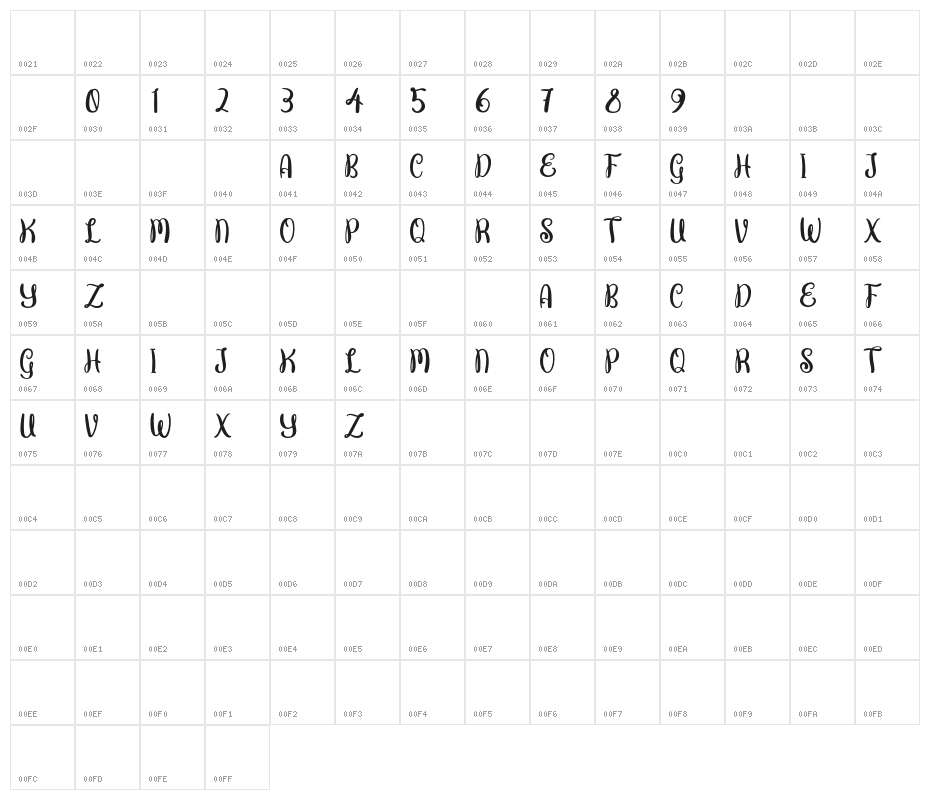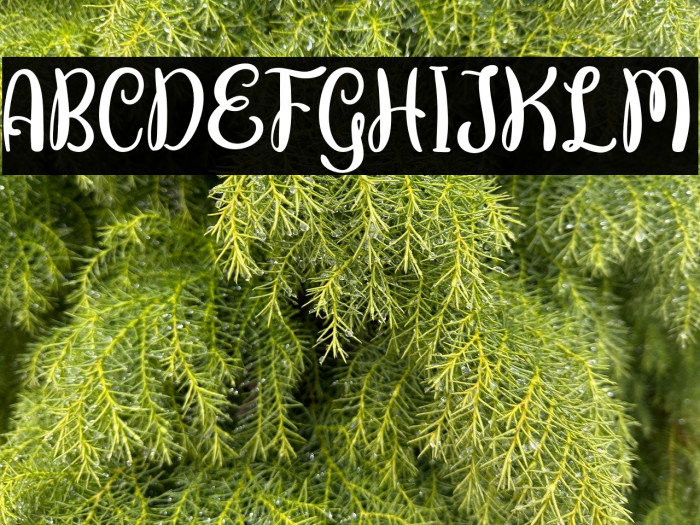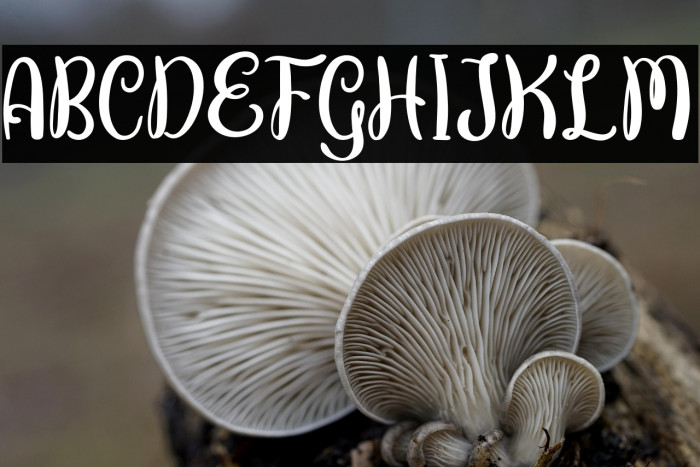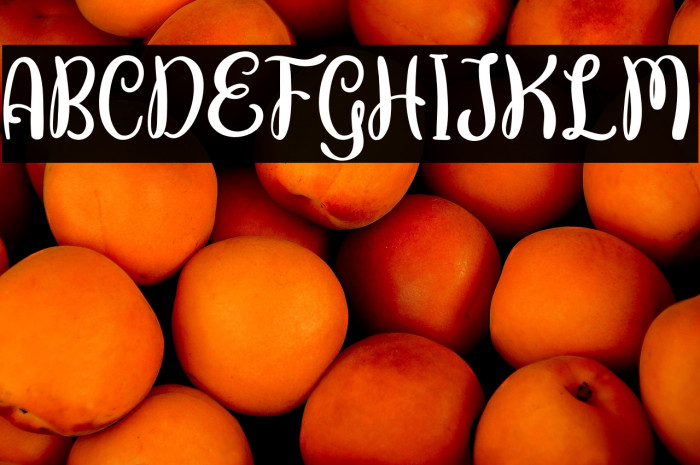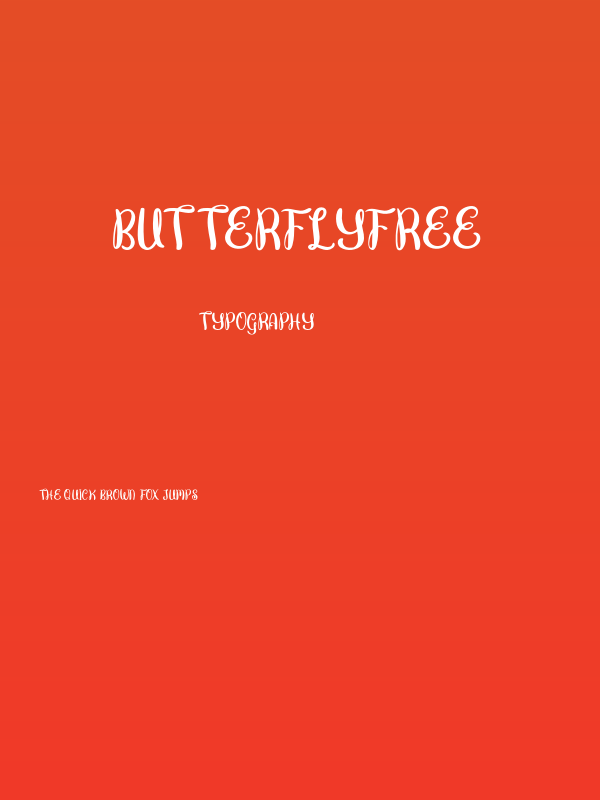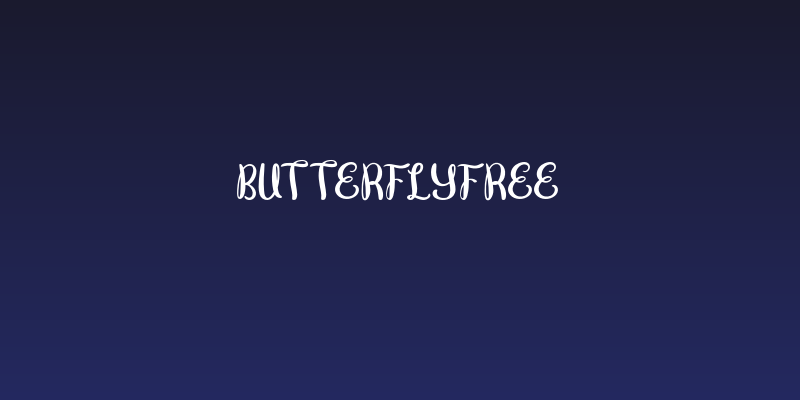
ButterflyFREE Font
ButterflyFREE Description
This font features a whimsical and playful design, characterized by its flowing, cursive-like strokes and elegant curves. The letters are bold and have a distinct hand-drawn appearance, giving them a lively and dynamic feel. The uppercase and lowercase letters maintain a consistent style, with the uppercase being slightly more elaborate. The numbers are equally stylized, matching the overall aesthetic. The font's unique charm makes it suitable for creative and artistic projects, where a touch of personality is desired.
Use CaseHeadlines, Logos, Creative projects
Proposed ProjectsIdeal for greeting cards, invitations, posters, and branding materials that require a whimsical and artistic touch.